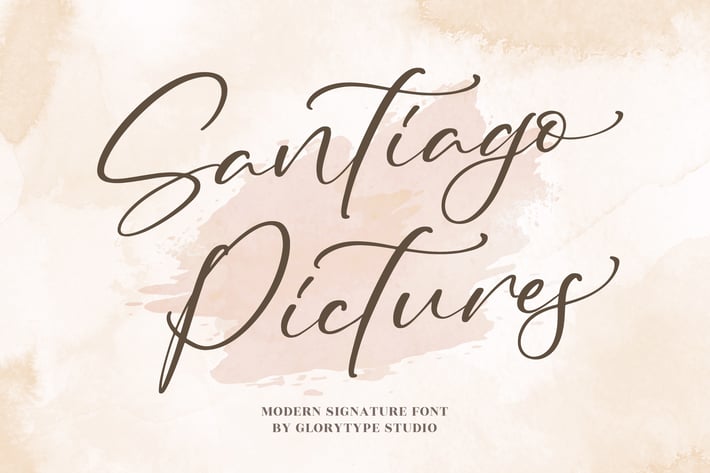
Santiago Pictures Modern Signature Font
Santiago Pictures Modern Signature Font is a sophisticated, elegant font designed to add a personal, handwritten touch to your creative projects. With its fluid curves and refined strokes, this font is perfect for adding a luxurious signature style to your branding, photography logos, business cards, and more.
Modern signature script font
Elegant strokes with smooth, natural flow
Perfect for branding, photography, and creative projects
Photography logos & branding
Creative business cards with a personal touch
Luxury brand designs
Wedding stationery and invitations
Social media branding and posts
Signatures for business and personal use
Marketing materials with a sophisticated flair
Bring a professional yet personal touch to your creative projects with the Santiago Pictures Modern Signature Font, perfect for sophisticated branding and more.